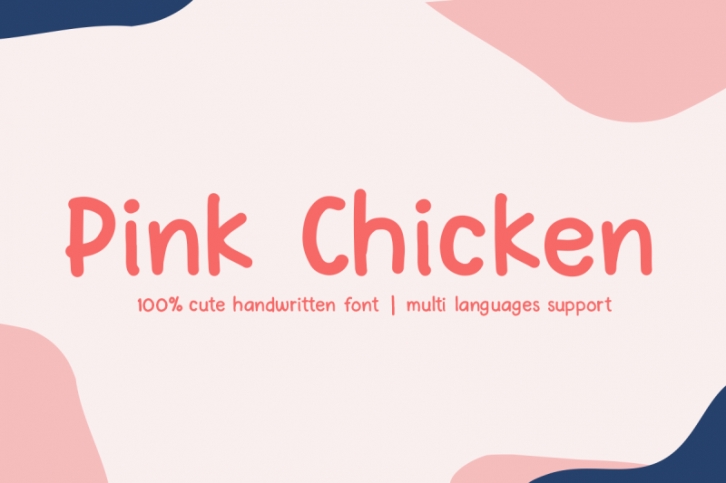
Pink Chicken is a cute handwritten font, this font is complete all punctuation and multi-languages support. Pink chicken has an authentic casual shape so this design will applicable on any occasion design. Enjoy this font, its also support for mac and windows.